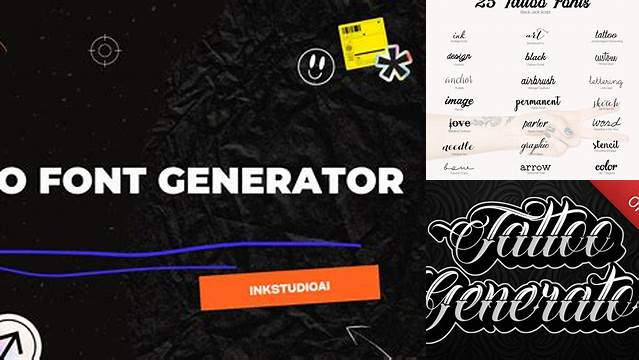
Free Tattoo Font Generators: Find Your Perfect Ink Style!
Hey guys! Ready to dive into the awesome world of tattoo fonts? Choosing the right font is a big deal, shaping how your ink tells its story. We're talking about a key element, the font, which can make or break your tattoo's overall vibe. But don't sweat it! This guide will walk you through the best free tattoo font generators, helping you find the perfect style to express yourself. Get ready to explore, experiment, and find the font that screams "you"! Let's get started and make sure your next tattoo is absolutely amazing.
What Makes a Great Tattoo Font?
First things first, let's chat about what makes a tattoo font really shine. It's not just about looks, although aesthetics play a massive role. When picking your font, think about these key things: readability, style, and how well it fits your tattoo's design. You want people to easily read what your ink says, right? So, opt for a font that's clear and easy on the eyes, especially when it's in a smaller size or has a lot of detail. The style needs to match your overall vibe too. Are you going for a classic, vintage feel? Or something bold and modern? The font should mesh with your personality and the tattoo's concept. Consider the placement of your tattoo; some fonts work better on certain body parts than others. For instance, a delicate script might look great on your wrist, while a strong, blocky font might be perfect for your back.
Now, let's delve a little deeper. Readability is your best friend. Avoid fonts that are overly stylized or have intricate details that could get blurry or fade over time. Simple, clean fonts often age better and stay readable for years. The style should also reflect your personal taste. Do you love old-school tattoos? Then, a classic script or a nautical-inspired font might be your jam. Or maybe you're into something more contemporary. In that case, think about clean sans-serif fonts or geometric designs. Finally, think about how the font interacts with the tattoo's imagery. The font shouldn't compete with other elements of the tattoo, but rather complement them, creating a cohesive design that tells a complete story. Think about the surface you are tattooing; curved areas, flat areas and the size constraints affect font choice. This all leads to a great experience!
Top Free Tattoo Font Generators You Need to Know
Okay, so you're probably wondering where you can find these amazing free tattoo font generators. I've got you covered! Here are some of the best, most user-friendly tools out there. These platforms allow you to preview fonts, play around with different styles, and get a feel for what your tattoo might look like before you commit.
DaFont: This website is a treasure trove for fonts, including a massive selection perfect for tattoos. You can browse fonts by category, which makes it super easy to find something that matches your vision. Most fonts on DaFont are free for personal use, but always double-check the license. You can typically download and preview fonts easily. The site is very intuitive to navigate, offering previews and different font variations, so you can experiment and get a feel for the design.
Font Squirrel: Similar to DaFont, Font Squirrel is a fantastic source for high-quality, free fonts. What makes it stand out is its focus on finding fonts that are free for commercial use, which is really handy if you're a designer or want to use the font for something beyond personal tattoos. Font Squirrel also allows you to preview your text in different fonts, giving you a visual of what your design will look like before you even hit the tattoo studio. Their fonts are also well-curated. That makes your search much easier!
Calligraphr: This tool is something special because it lets you create your own fonts! If you want a truly unique tattoo, Calligraphr is your best bet. You can create a custom font based on your handwriting or any other design. The platform is incredibly user-friendly, making the font creation process super fun. This is perfect for personalizing your ink and making it extra meaningful. With Calligraphr, the possibilities are endless.
BeFonts: BeFonts is another great website with a huge variety of tattoo fonts and styles. They have a wide selection to meet all your needs. Similar to other platforms, this one is super easy to use. The website is well-designed and easy to navigate.
These tools provide a diverse range of styles, from classic scripts to modern designs. They're perfect for brainstorming and helping you to refine your tattoo idea. Remember to download a font from a trusted source and be sure to use a font that's compatible with the software your tattoo artist uses.
Tips for Choosing the Perfect Tattoo Font
So, how do you choose the perfect tattoo font? Here are a few tips to help you out! First, consider your tattoo's message. What do you want your ink to say? Is it a quote, a name, or a symbol? The font should reflect the meaning. For example, a strong, bold font might suit a powerful quote, while a delicate script might be perfect for a name or a special date.
Secondly, think about the tattoo's placement. Where will it go on your body? Some fonts look better in certain areas. A longer quote might look great down your spine, while a smaller font might be best for your wrist or ankle. Also, consider the size and visibility. If you want your tattoo to be easily readable, choose a font that's clear and isn't too intricate. Thirdly, try out different fonts. Don't rush! Most of the generators above allow you to preview different fonts with your chosen text. This is the best way to see how the font will look in real life. Experiment with various styles and sizes until you find the one that feels right. Lastly, consult with your tattoo artist. They're the experts, and they can give you valuable advice on font choice, placement, and how well the font will age. They also know which fonts work well with different skin types.
Additionally, it is essential to think about the font's longevity. Some intricate fonts may blur or fade over time. Therefore, it is a good idea to choose a font that is not too complex, which will help the tattoo maintain its clarity for a longer time. The tattoo artist will likely recommend the fonts that are best suited to the kind of design you are trying to create. Remember, your tattoo is a forever thing! A little planning and research go a long way in making your tattoo a masterpiece.
Conclusion: Ink Your Dreams!
Alright, that's a wrap, guys! I hope this guide has given you a good start in finding the perfect free tattoo font generator. Finding a font can be overwhelming, but hopefully, it has become less intimidating. I have tried to arm you with some awesome tools and tips to make the process as smooth as possible. Remember, your tattoo is a reflection of you, so choose a font that resonates with your style and story. Enjoy the process, experiment with different designs, and most importantly, have fun! Cheers to your next tattoo.